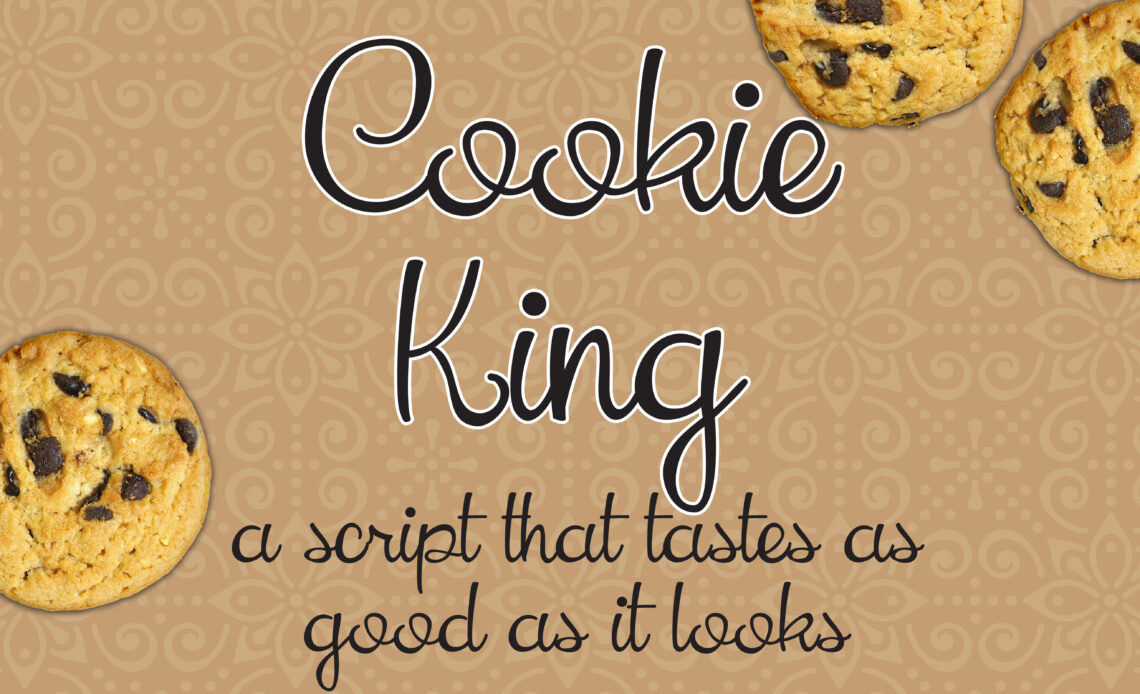
Feast your eyes on Cookie King Font - a delectable treat for your creative endeavors! With its captivating script style, this font will tantalize your senses and leave you craving more.
Crafted by the skilled hands of Illustration Ink, Cookie King is a work of art that effortlessly blends the charm of handwritten letters with the precision of digital artistry. Its irregular appeal lends an authentic, personal touch to your projects, making them stand out from the ordinary.
Picture this: you're penning a heartfelt letter to a loved one, and the words dance across the page in the enchanting flow of Cookie King. Each stroke carries the warmth of your emotions, adding depth and sincerity to your message. Or perhaps you're designing an invitation for a special occasion, and Cookie King's playful personality sets the tone for a joyous celebration.
Let your imagination run wild as you explore the endless possibilities with Cookie King. It's perfect for adding a touch of whimsy to your journaling, creating visually stunning quotes that inspire and uplift, or crafting unique logos that capture the essence of your brand.
Unleash your creativity and let Cookie King take you on a delightful journey. With its versatility and charm, this font will become your go-to choice for adding a touch of magic to your creative projects.
So why settle for ordinary when you can indulge in the delectable delight of Cookie King? Embark on a typographic adventure today and experience the joy of creating with this extraordinary font.